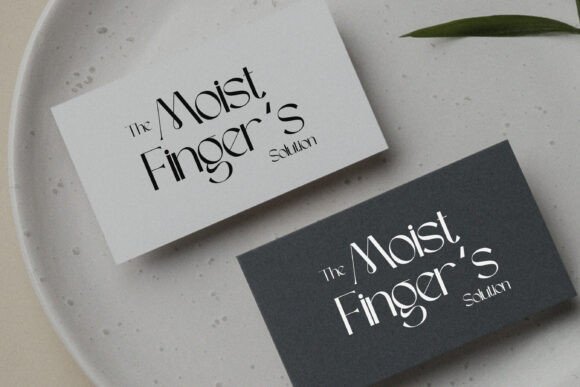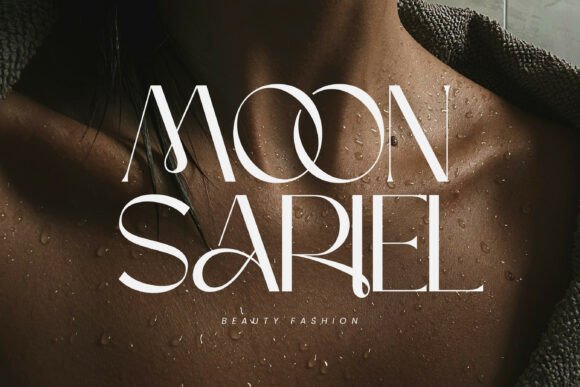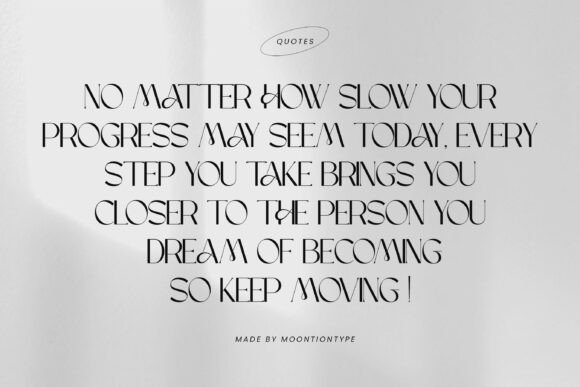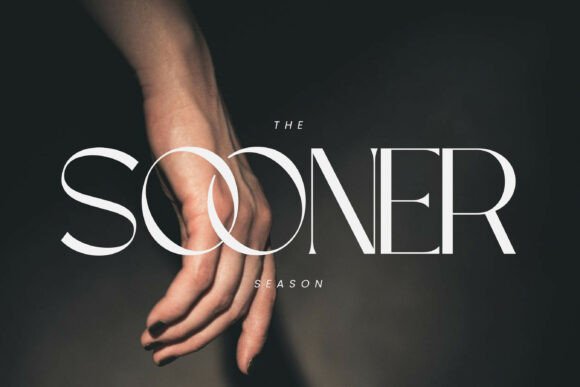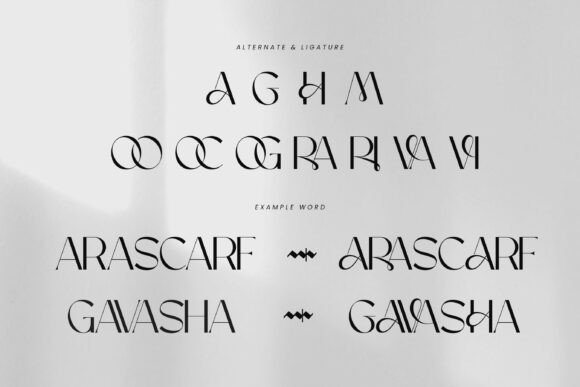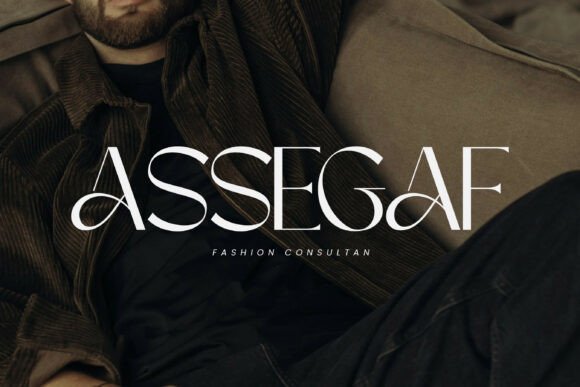
Introduction to Maison Bright Font
Imagine you’re working on a high-end branding project, pouring over layouts and typography, trying to find the perfect font to elevate your design. You’re on the hunt for something that screams luxury, sophistication, and refinement. Then, you stumble upon the Maison Bright Font – a game-changer for designers who crave a high-quality, elegant typeface.
The Maison Bright Font is more than just a design resource; it’s a statement piece that brings a touch of exclusivity to any creative project. Its stunning ligatures and sharp contrasts evoke the feeling of a premium lifestyle magazine, making it perfect for logo design, editorial layouts, and high-end packaging. With its classic serif foundations and contemporary flourishes, this font is an essential tool for any designer’s toolkit.
Key Features of Maison Bright Font
- Unique characteristics: elegant, modern, and sophisticated design style
- Perfect for designers, artists, and creatives working on branding, packaging, and advertising projects
Honest Review: Maison Bright Font
As a designer, I’m always on the lookout for high-quality fonts to elevate my creative projects. Recently, I came across the Maison Bright Font, and I must say it’s been a game-changer.
What works well about the Maison Bright Font is its modern aesthetic and versatility. The font is perfect for a wide range of design projects, from branding to packaging and even digital design. The transparent background feature is also a major plus, making it easy to use on any background.
Some of the standout features of the Maison Bright Font include:
- High-quality design that’s perfect for professional projects
- Modern aesthetic that’s perfect for creative projects
While the Maison Bright Font is an excellent resource, I do have a few minor complaints ⚠️. The font could benefit from more character variations, and the download process could be a bit smoother. However, these are minor quibbles in an otherwise excellent font.
Overall, I’m thoroughly impressed with the Maison Bright Font. It’s a valuable addition to any designer’s toolkit, and I highly recommend it for any creative project ✨.
Maison Bright Font
Maison Bright Font is a versatile and stylish design resource ideal for creative projects. This high-quality font offers a transparent background, making it perfect for various applications.
Tips for Getting the Most Out of Maison Bright Font
To maximize the impact of Maison Bright Font, consider the following tips:
- Use it in combination with other high-quality fonts to create a cohesive design.
- Experiment with different font sizes and styles to achieve the desired effect.
- Pair Maison Bright Font with a transparent background for a clean and modern look.
Maison Bright Font is suitable for a wide range of applications, including:
- Branding and identity design
- Graphic design and visual arts
- Print and digital publishing